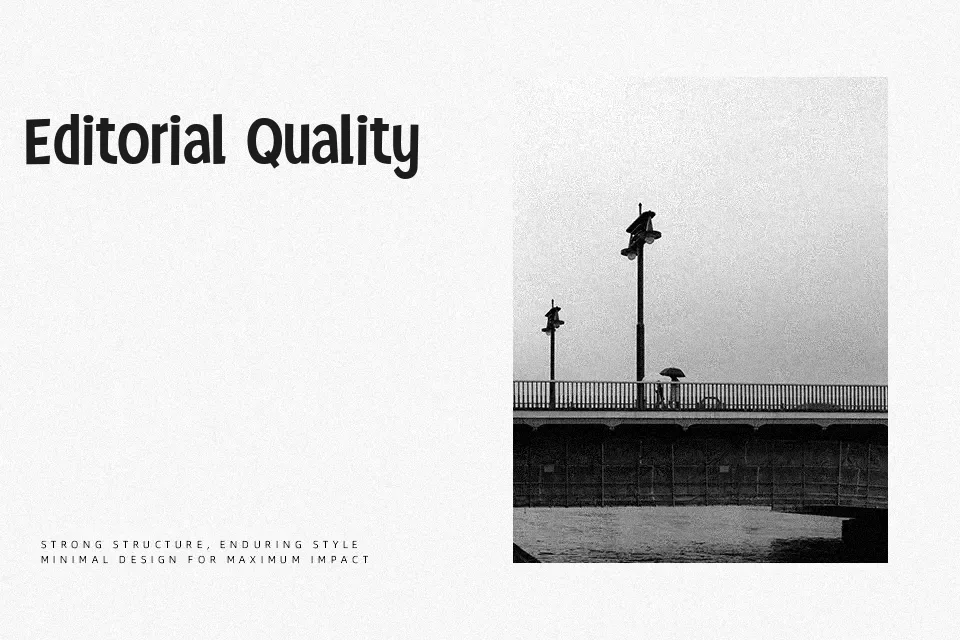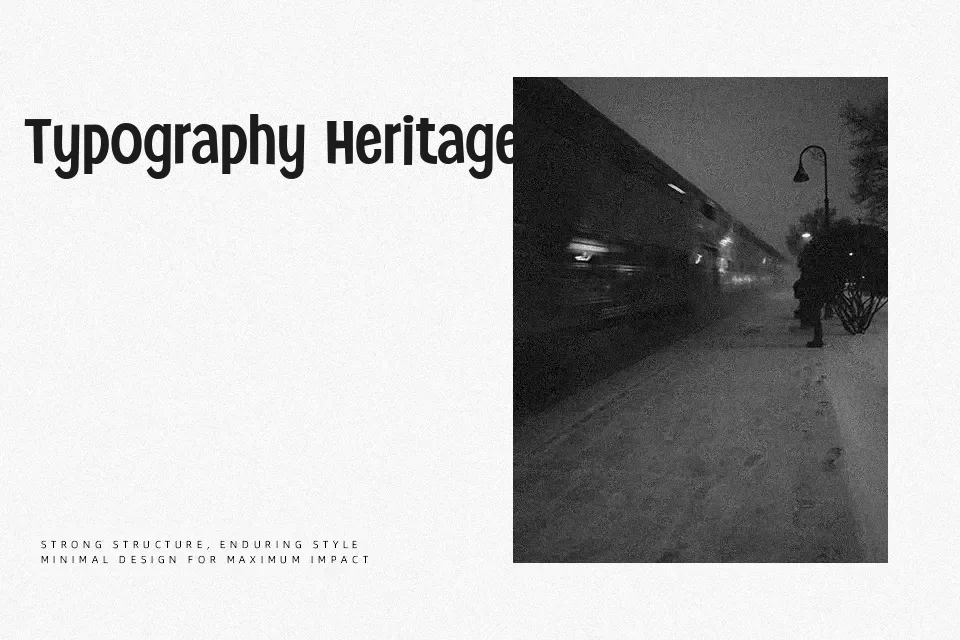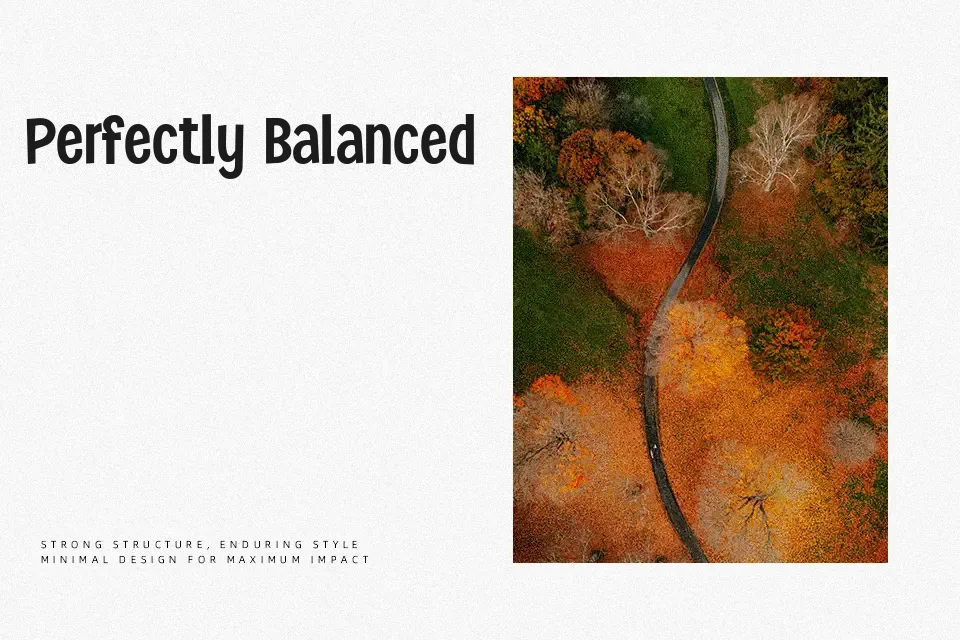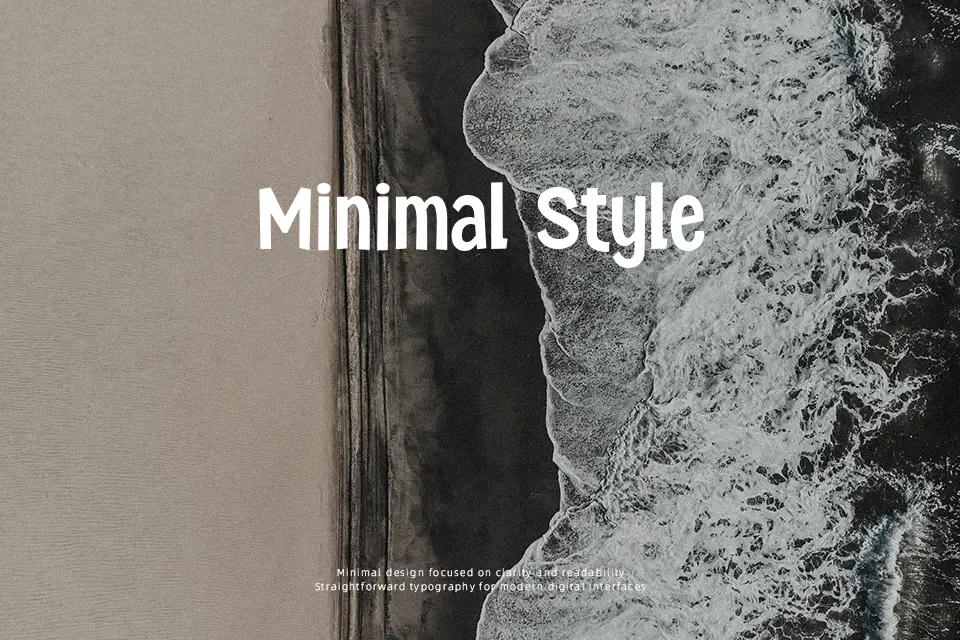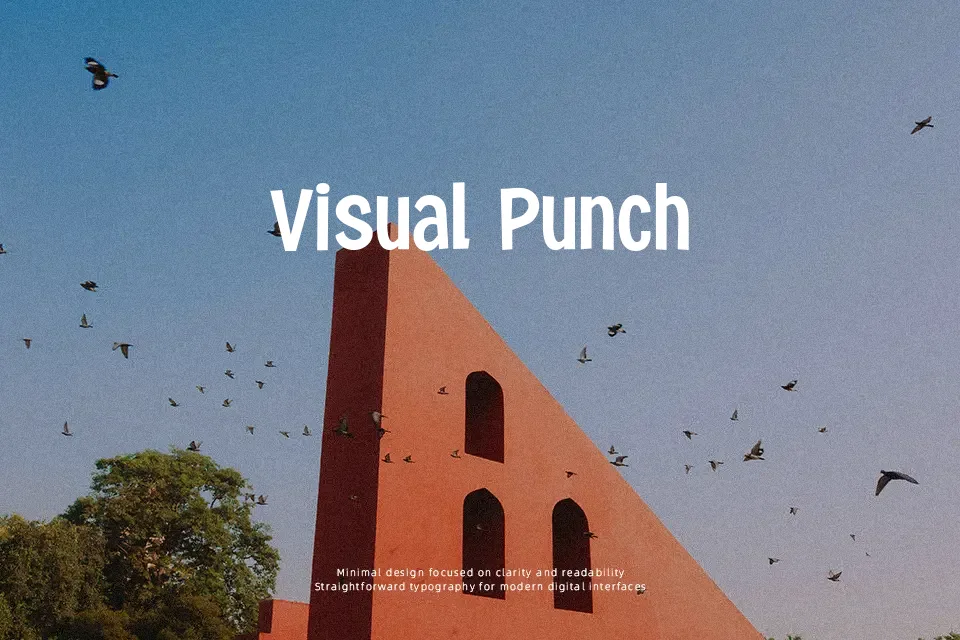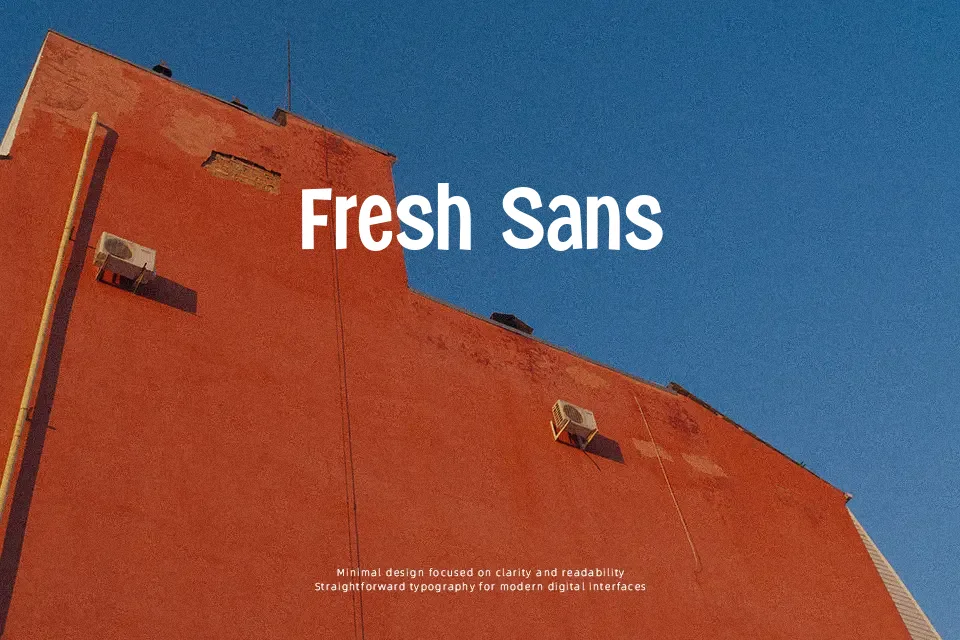
Simply Olive Font
Designed by Niskala Huruf
Simply Olive Font is defined by plump, heavy stroke weights with softened terminals and relaxed geometric proportions. The letterforms maintain balanced inner counters and comfortable tracking, allowing short phrases to stay distinctly legible at prominent display scales. In practical application, the typeface works exceptionally well for merchandise branding, animated video title cards, and kindergarten learning materials. However, the thick, bulbous anatomy causes tight negative space in compact settings, making the design unsuitable for multi-line body paragraphs or small mobile captions. For standalone headers and bold focal points, the font provides dependable clarity and an engaging, unpretentious presence.
Best For: children’s merchandise branding, animated title cards, toy packaging graphics, illustrated storybook headers
Not Ideal For: continuous body text, dense financial tables, legal disclaimers, small interface captions
Perfect for branding, headline, and kids, with a bold and cartoon style.